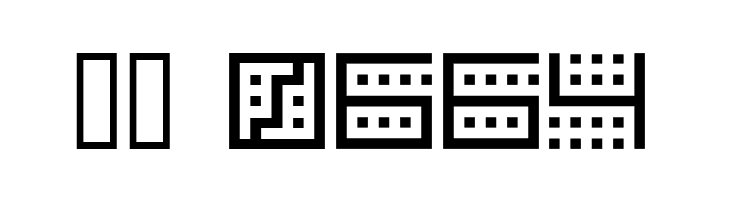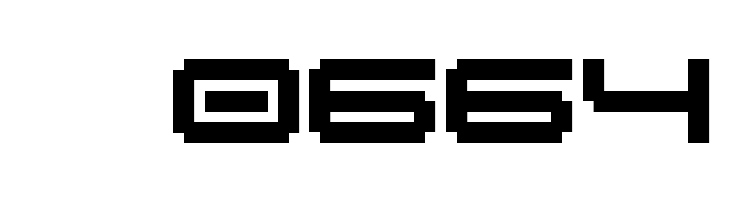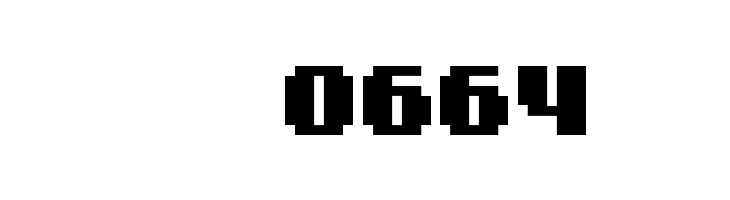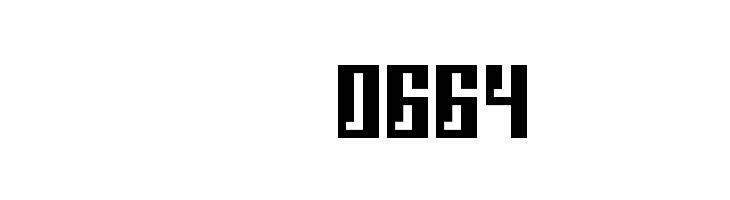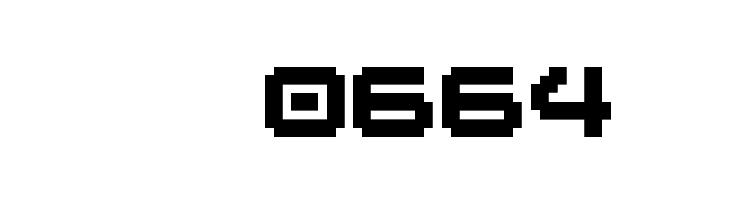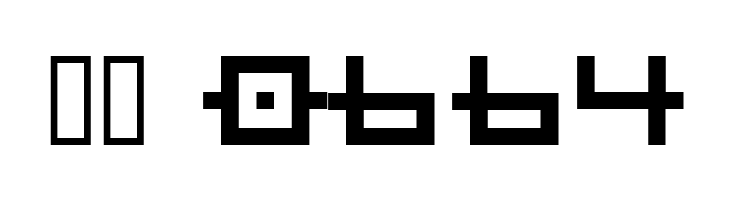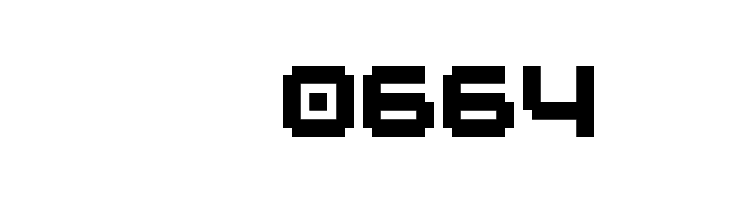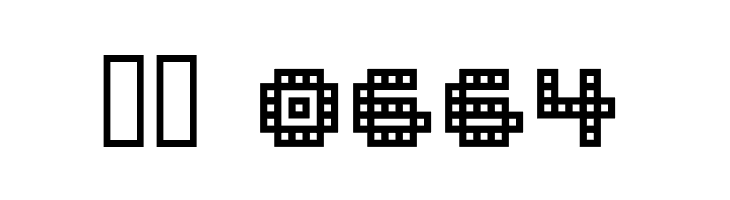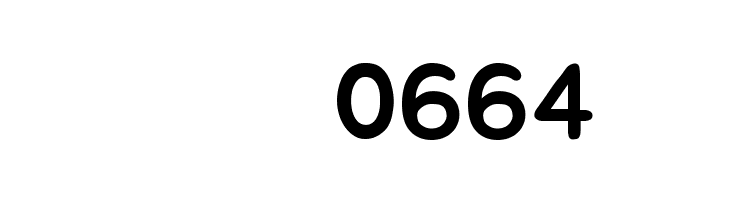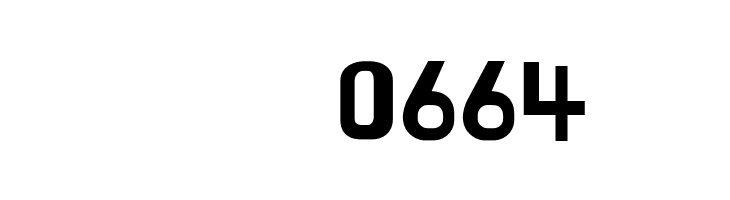
A dynamic, expressive handwritten script font with fluid strokes.
A bold, expressive script font with a flowing, hand-drawn style.
A playful and artistic script font with a hand-drawn, cursive style.
A playful and whimsical script font with a hand-drawn quality.
A pixelated, retro-style font inspired by early computer graphics.
A pixelated, retro-style font inspired by early digital displays.
A bold, playful font with a modern and decorative style.
A playful and dynamic handwritten font with expressive strokes.
A fluid and elegant handwritten font with smooth, flowing lines.
A dynamic, handwritten font with fluid strokes and a playful, expressive style.
A playful, bold, and hand-drawn style with fluid strokes.
A bold, distressed font with a grunge, vintage style.
A bold, distressed font with a grunge, urban aesthetic.
A playful, bold font with dotted accents and a hand-drawn feel.
A decorative and bold font with whimsical uppercase letters and straightforward lowercase characters.
An artistic font with intricate line work and geometric elements, blending modern and vintage styles.
A playful, bold font with rounded, bubbly characters perfect for creative projects.
Bold, bubbly retro display font with playful, groovy shapes.
A bold, hand-painted style font with expressive, uneven strokes.
Hand-drawn cartoon dingbat font with playful character illustrations.
A lively and dynamic script font with fluid, interconnected letterforms.
An elegant script font with flowing, cursive letters and intricate flourishes.
A bold, distressed font with a grunge, weathered appearance.
A bold, distressed font with a grunge, textured appearance.
A graceful, cursive font with thin, flowing strokes and elegant connections.
A playful, handwritten font with bold, rounded strokes and an energetic style.
A playful, bold font with rounded, bubbly characters perfect for informal and fun projects.
A playful, bold font with rounded, bubbly characters and a hand-drawn feel.